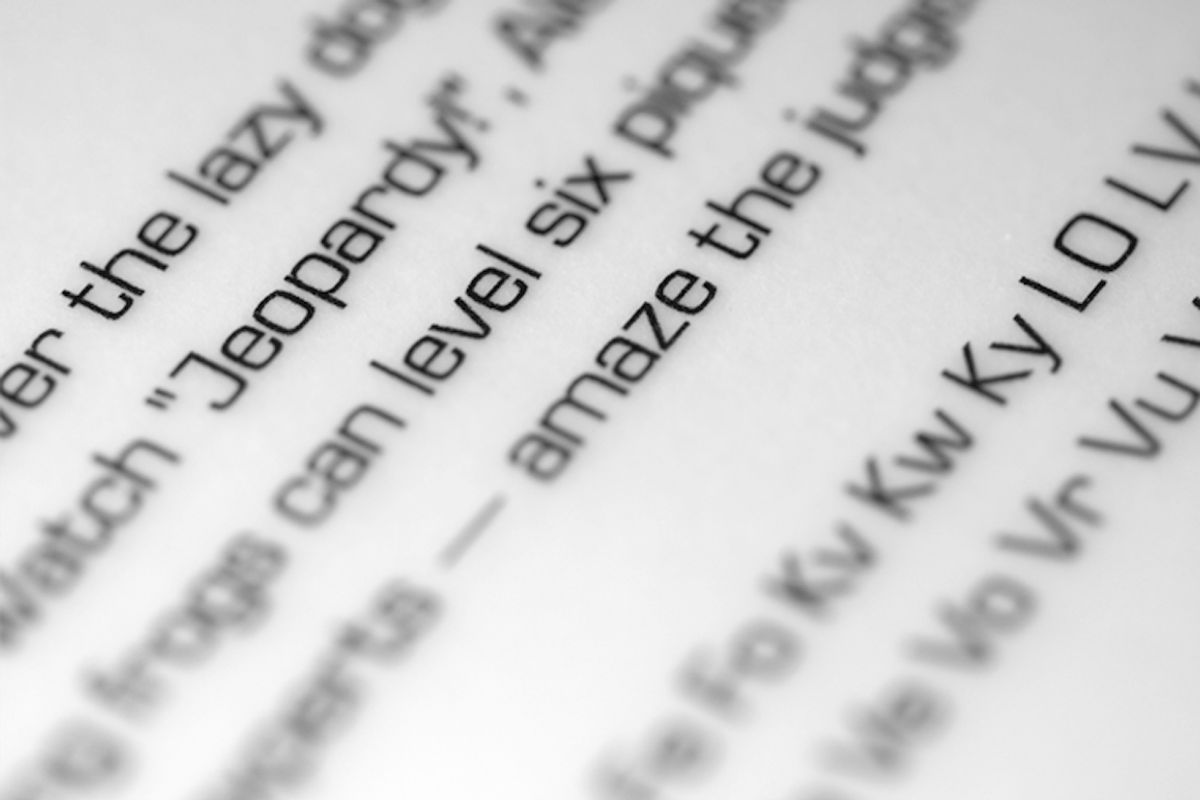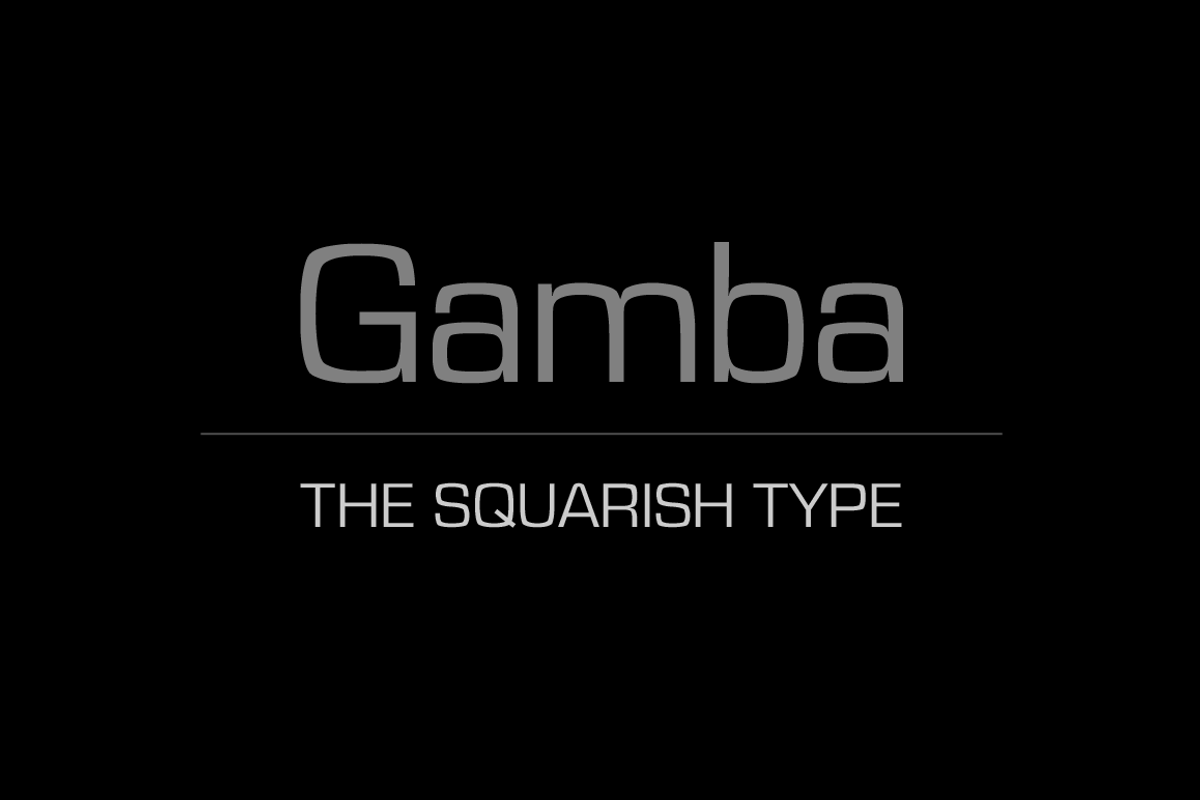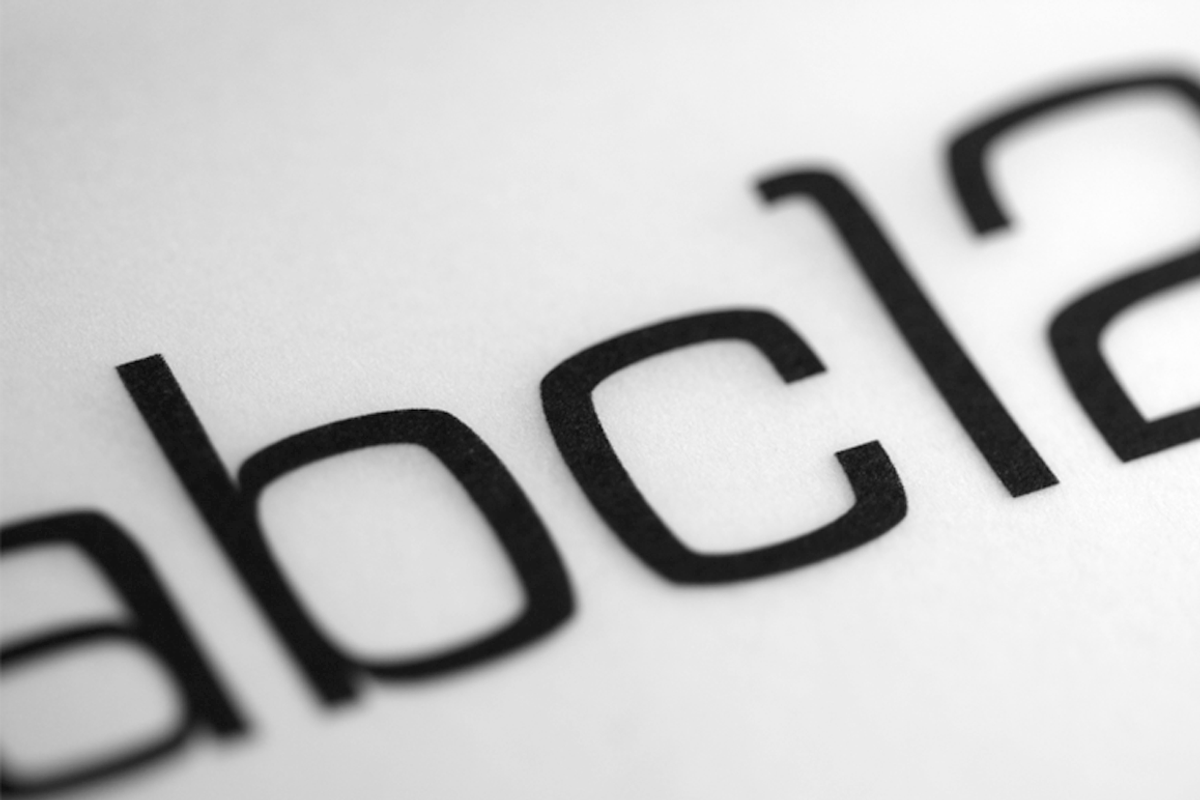
Gamba Font
Gamba Font by Juraj Chrastina is a font selected for branding, posters, packaging, typography.
- The quality of spacing and kerning is ensured by Igino Marini.
Gamba Font by Juraj Chrastina fits naturally into Branding, posters, packaging, typography.